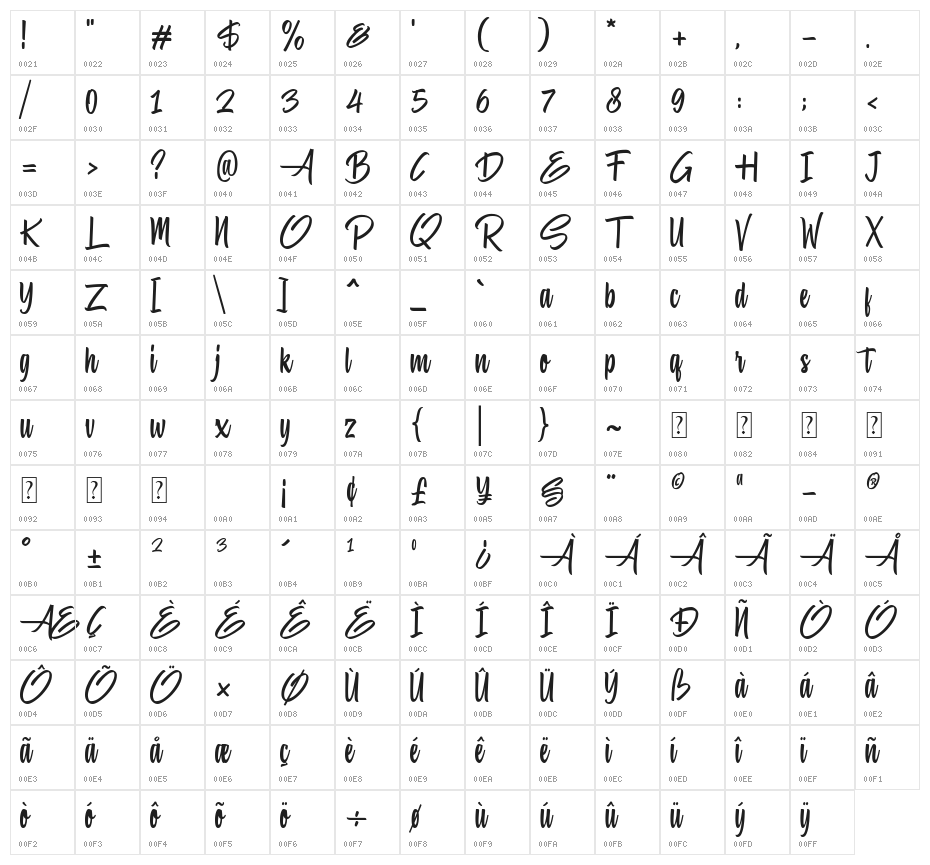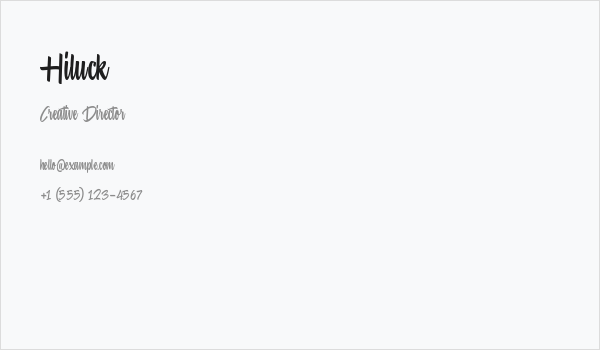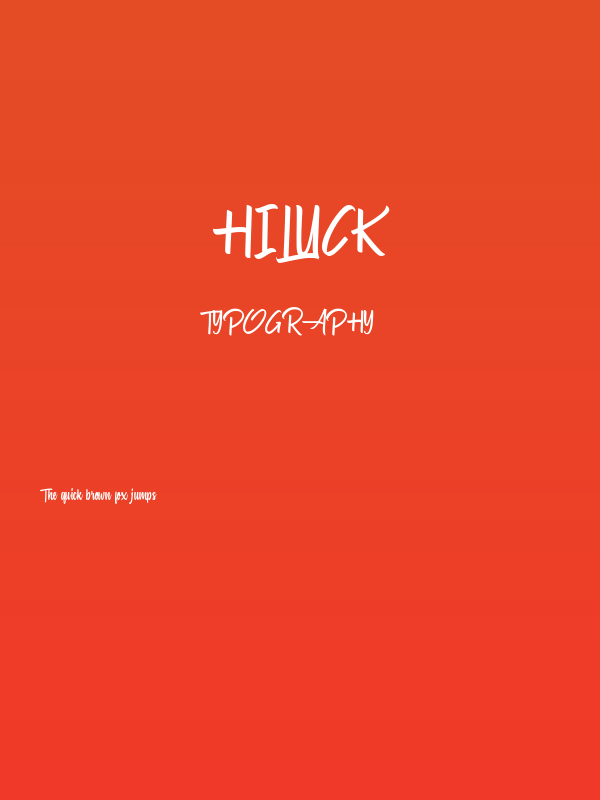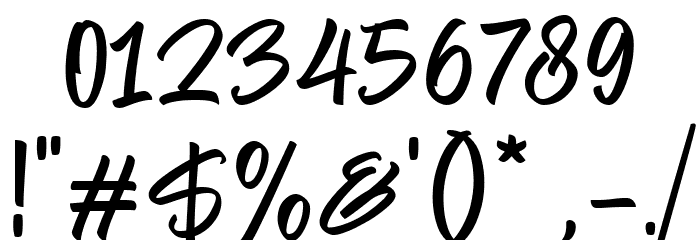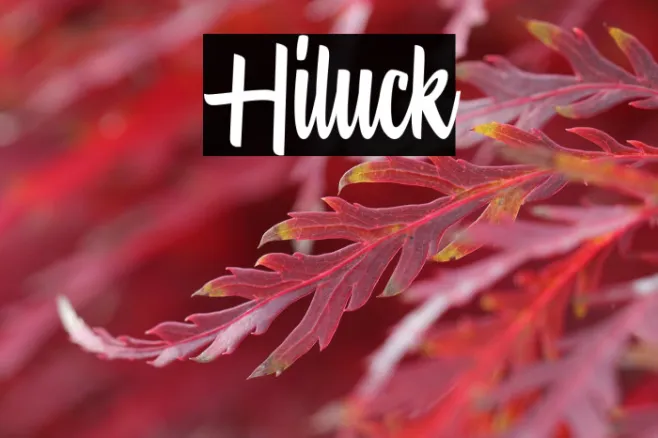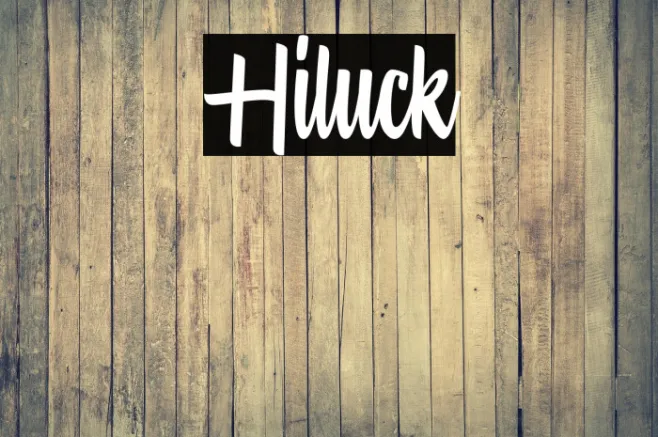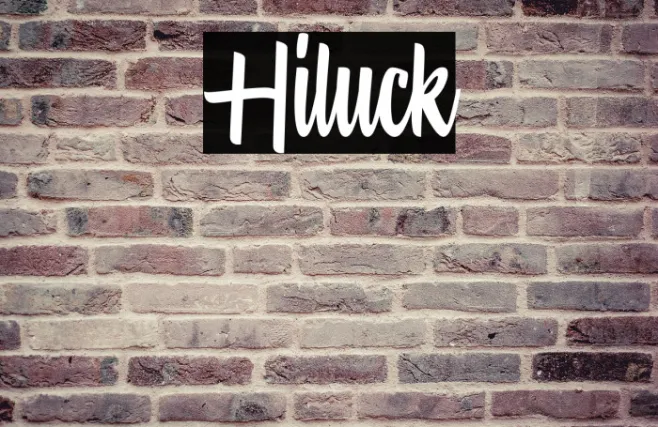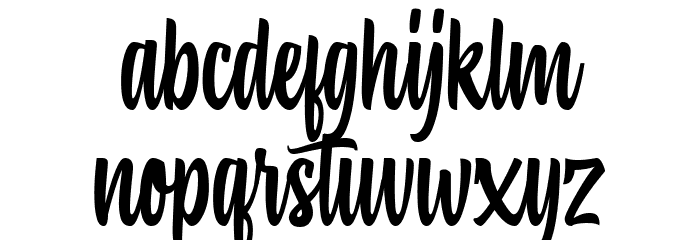
Hiluck Font
Hiluck Description
This font features a dynamic and expressive handwritten style, characterized by its fluid and slightly slanted letterforms. The uppercase letters exhibit a playful yet elegant flair, with strokes that vary in thickness, adding a sense of movement and energy. The lowercase letters maintain a cohesive flow, complementing the uppercase with their rounded and smooth curves. Numbers and special characters are crafted with the same attention to detail, ensuring consistency throughout the typeface. This font's lively and informal appearance makes it suitable for projects that require a personal touch or a creative edge.